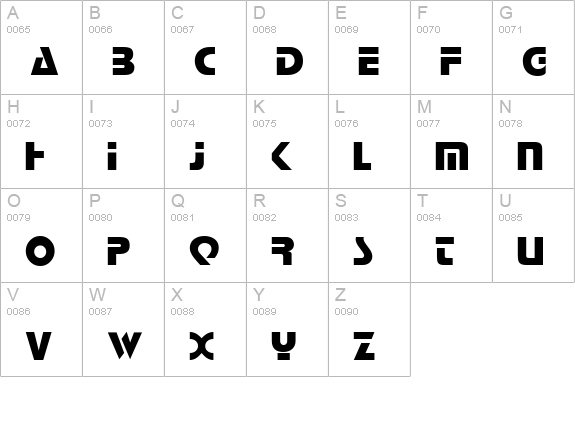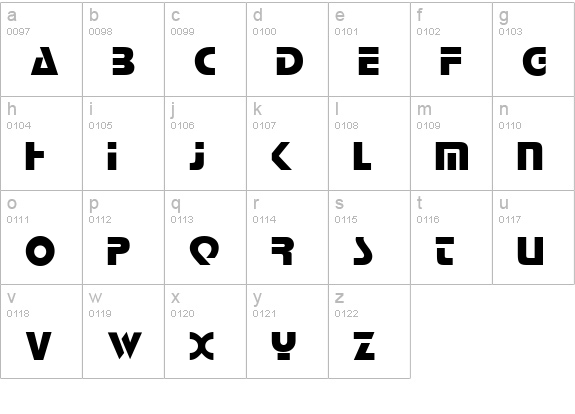
Logan Regular Font Details
Logan Regular is the standard, neutral variant in the Logan typeface family \xE2\x80\x94 well suited to general body text, paragraphs, and standard typographic work.
Logan Regular font is a versatile and modern typeface that exudes sophistication and elegance. With its clean lines and balanced proportions, Logan Regular is perfect for a wide range of design projects, from branding to editorial layouts. This font features a timeless appeal that will add a touch of class to any design. Best of all, Logan Regular font is available for free download at FontsMarket.com. This means you can easily access this high-quality font and use it in your projects without any cost. Don't miss out on the opportunity to enhance your designs with the timeless beauty of Logan Regular font. Download it today and elevate your creations to the next level.